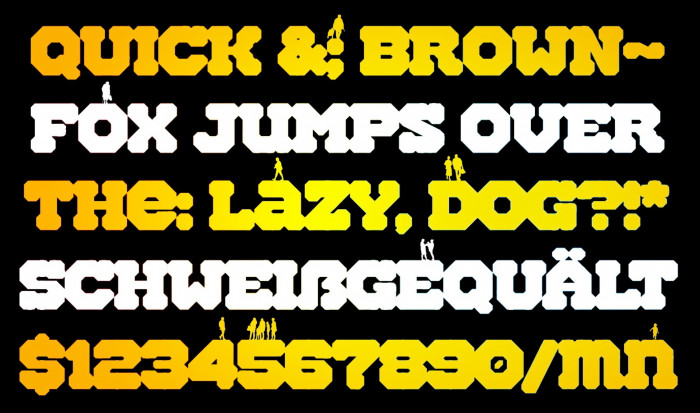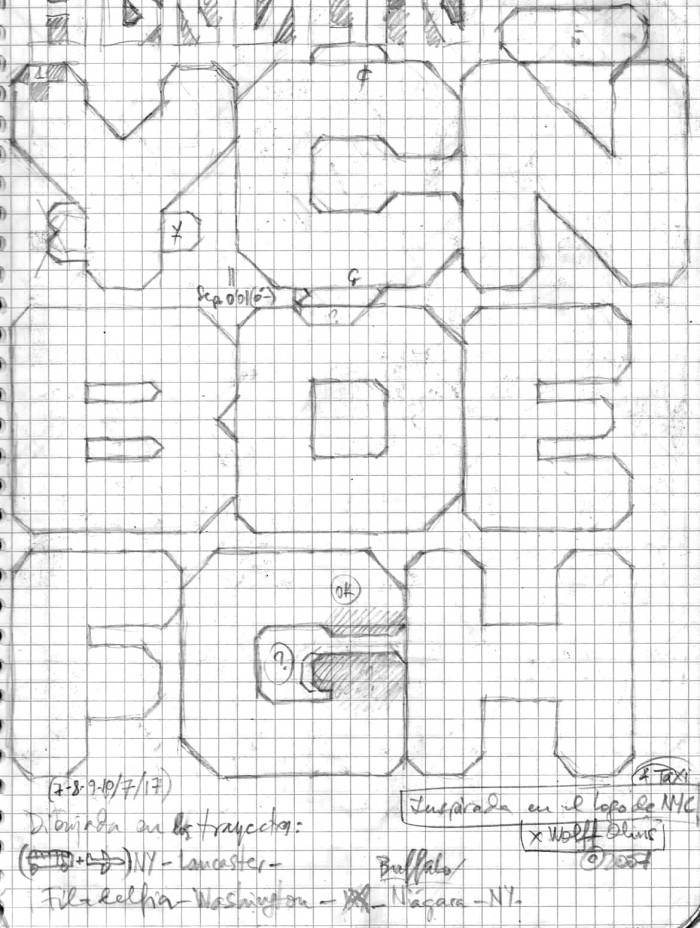
Unicase font with alternates. I've tried making each letter in a word touch the ones next to it, kind of like a script font. By-product of the recent HeavyComp.
Lovely octagonal design, sort of has a collegiate-esque style~
Well, this font was born in my ubiquitous notebooks during a trip to New York last 2017. There, naturally, I was struck by the design of the city's logo that could be seen on brochures, posters and billboards, and also on the sides of the YellowCabs. That design was made by the Wolff Ollins company in 2007, and its octagonal appearance has been the inevitable base of this font. I've added serifs and a lot of other design changes, you see. Only the N, Y and C characters was my inspiration. I wish you like it.
Nice. Even better samples ;)
I like this hard cut but rounded soft look, will look perfect with low-poly graphics.
Solid as concrete, this could carry a skyscraper !!!
oooh! that' s so nice. I like these beautiful little cubes, of course the ? illustration and the sketch.